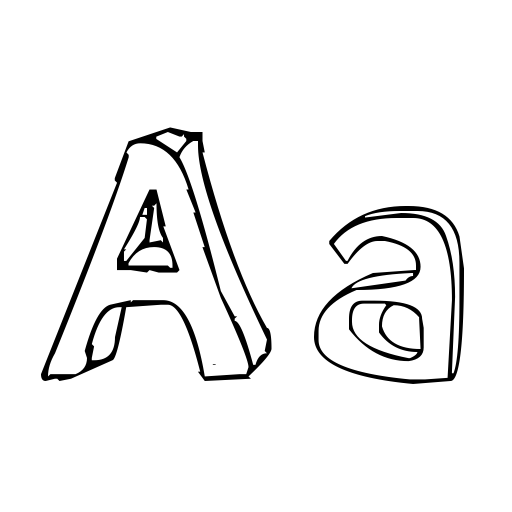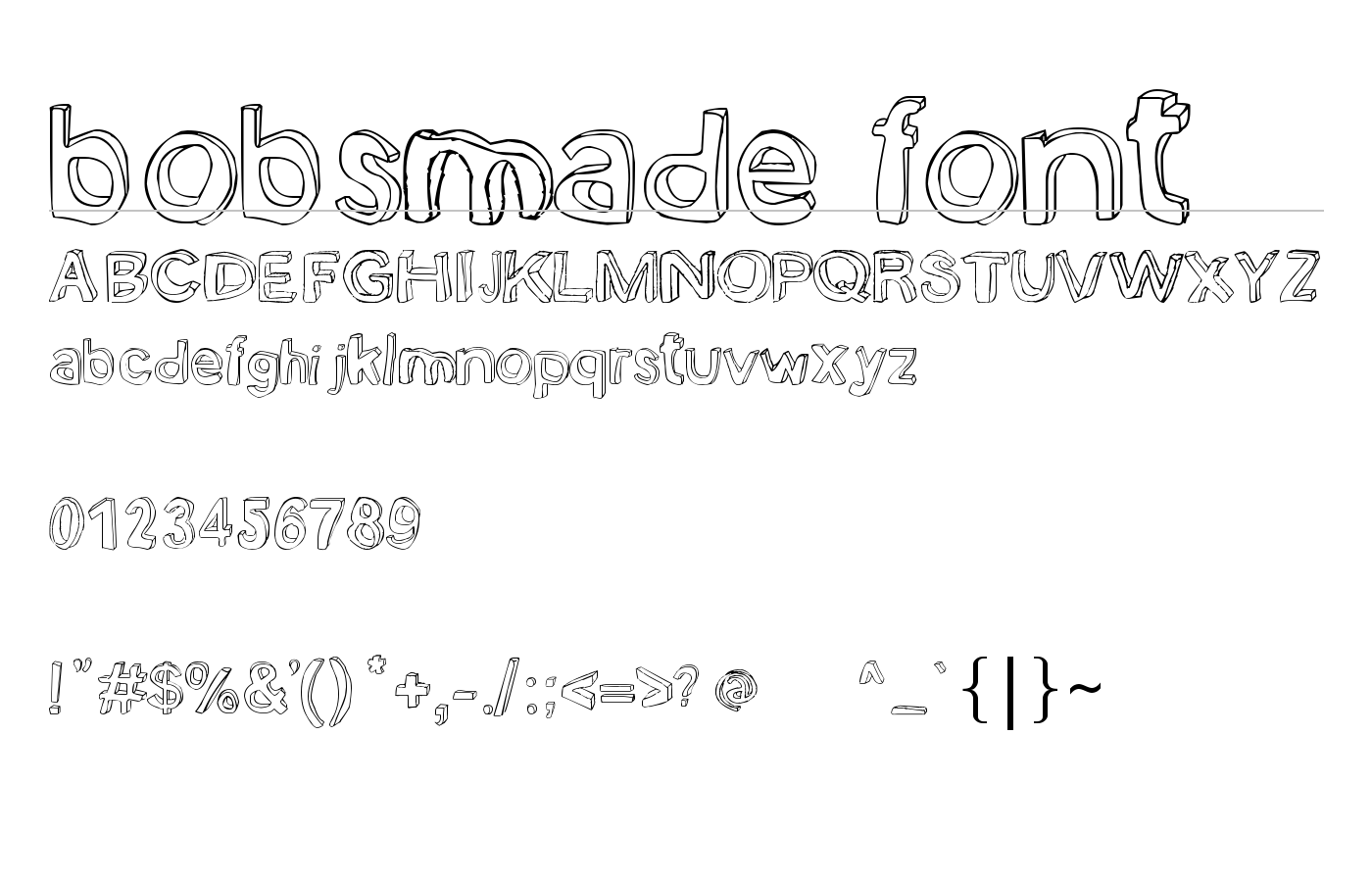
Bobsmade is a playful, hand-drawn sans serif font with a unique sketchy outline style that gives it a casual and artistic feel. Its irregular, three-dimensional letterforms with moderate width and lively stroke variation make it perfect for creative projects, eye-catching headlines, and designs that want to convey a sense of fun and individuality. This font works especially well in informal branding, posters, and editorial layouts where a distinctive, handcrafted look is desired.